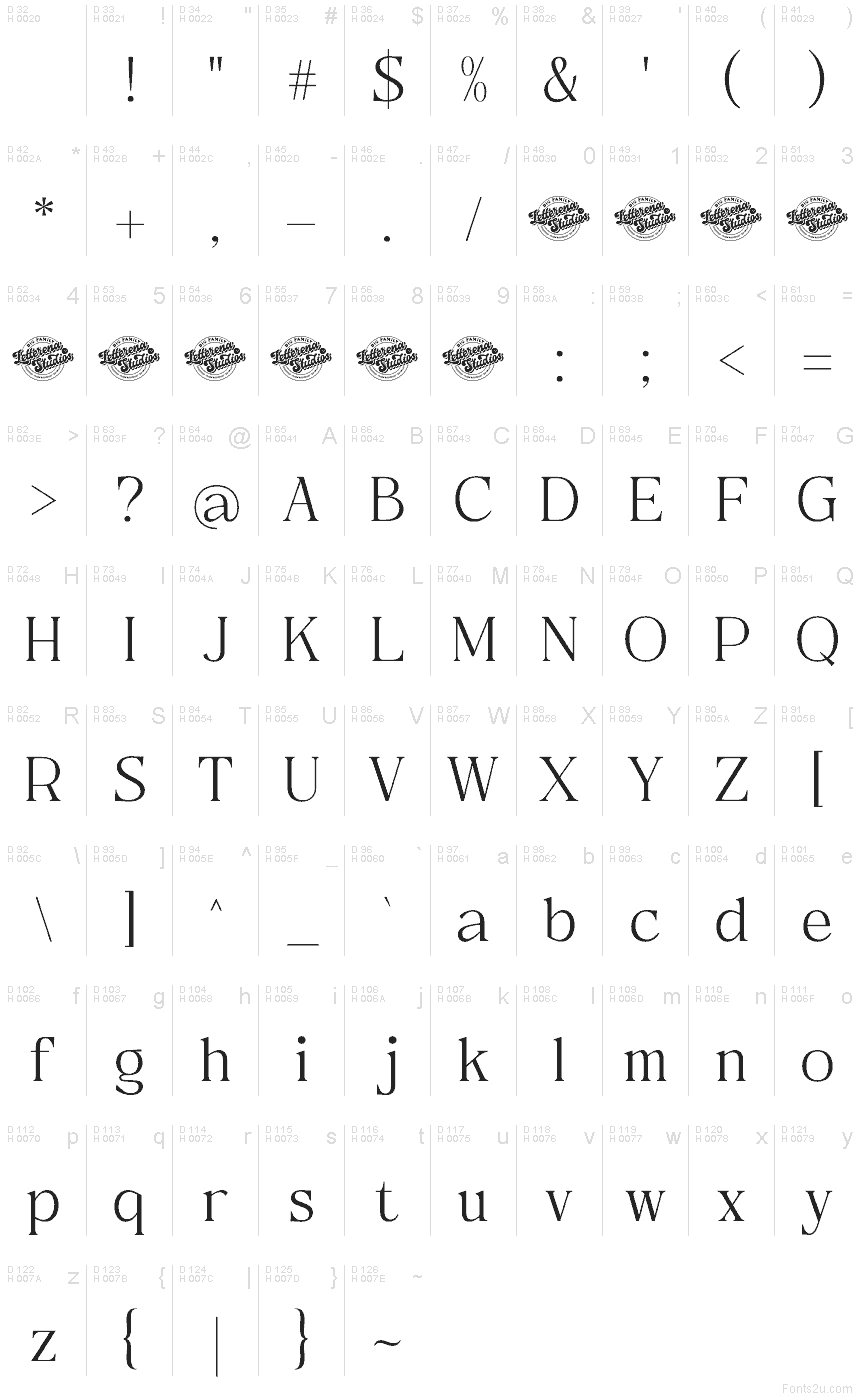
Metrolin DEMO VERSION
Metrolin font by Storytype Studio is a serif typeface with high-legibility glyphs. The font is modern, refined, elegant, and sophisticated with several distinguishing features such as the light serifs on its letters. Metrolin aims for clarity, and many elements that appear within its uppercase and lowercase characters will make it an admired font.